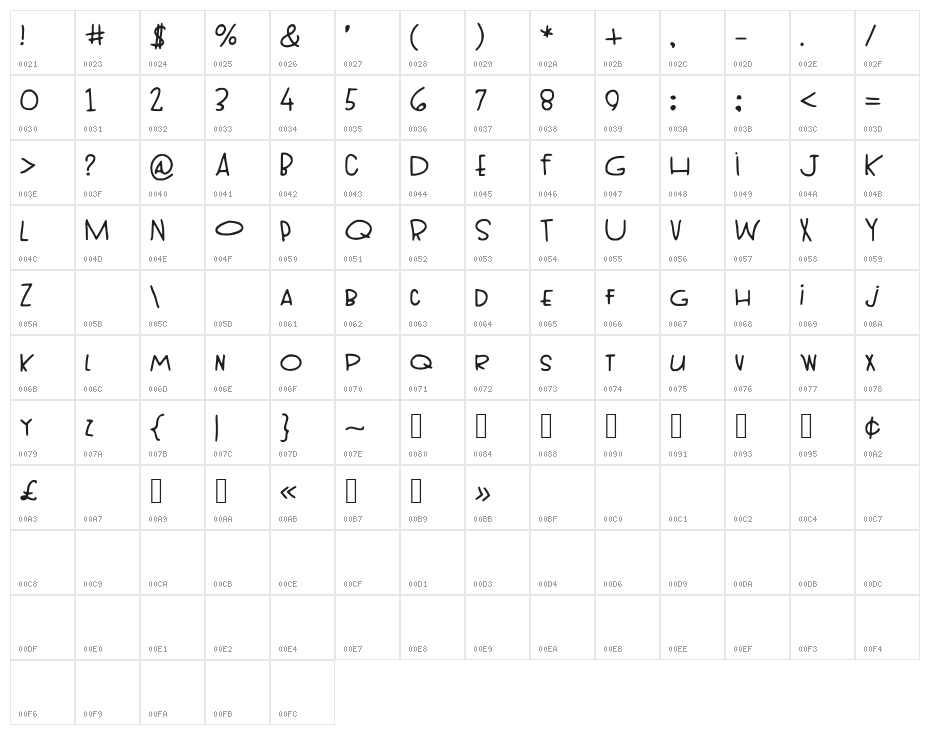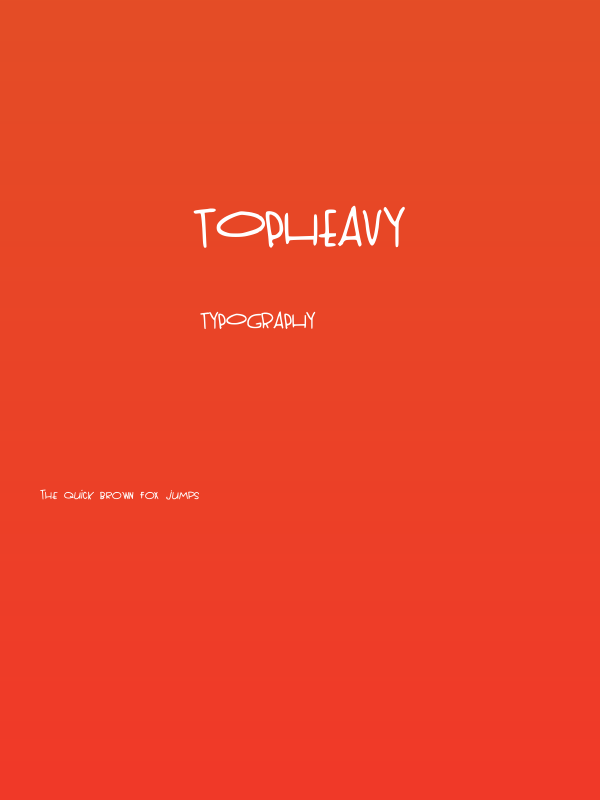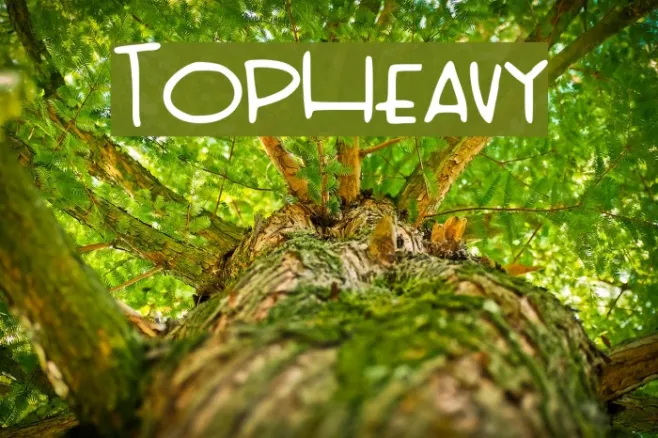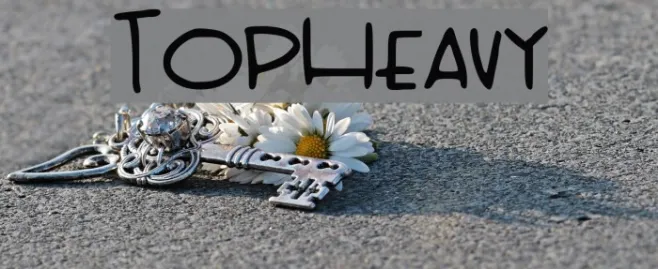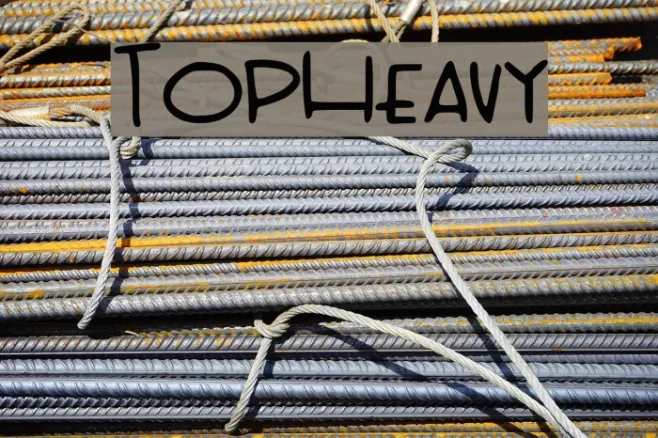
TopHeavy Font
TopHeavy Description
This playful and bold font features a distinctive hand-drawn style with exaggerated curves and a slightly uneven baseline, giving it a whimsical and informal appearance. The characters are wide and rounded, with a consistent stroke width that maintains readability while adding a touch of personality. The uppercase and lowercase letters share a similar style, with the uppercase being slightly more pronounced. Numbers and special characters are designed to match the playful aesthetic, making this font suitable for creative and informal projects.
| Proposed Projects | Ideal for children's books, comic strips, playful branding, and casual invitations. |